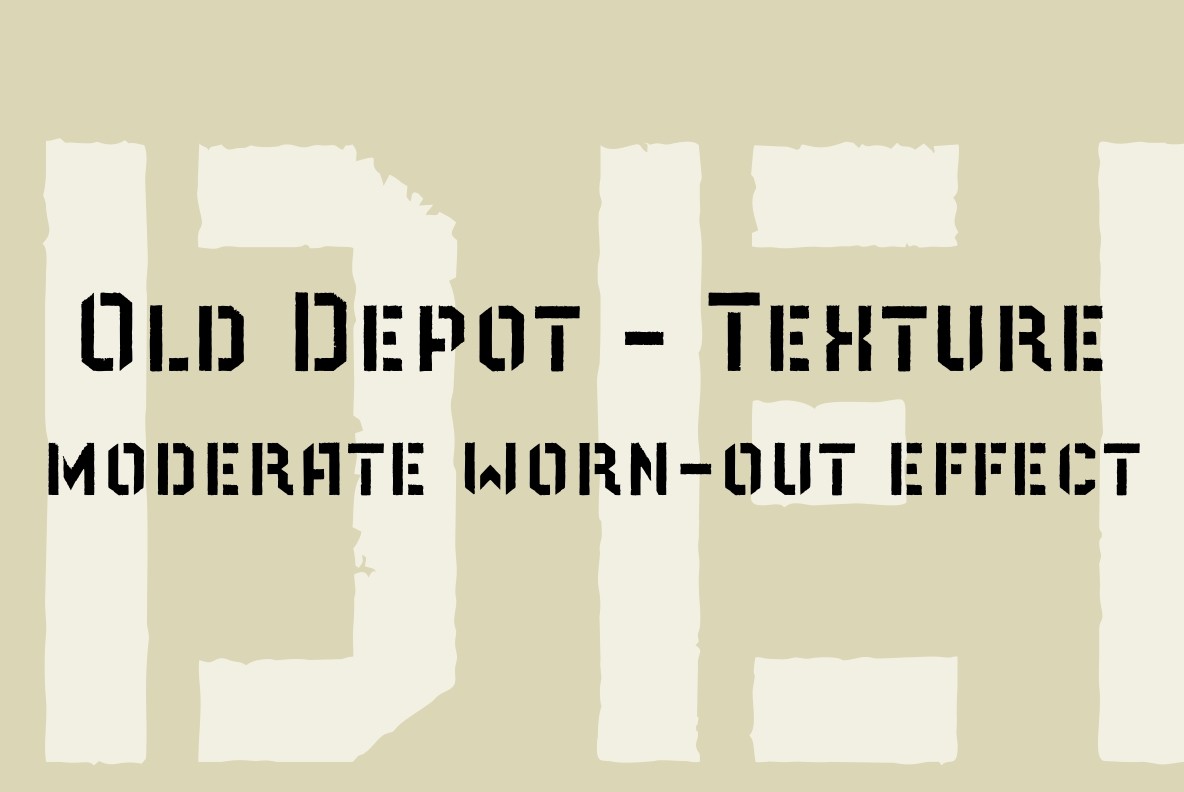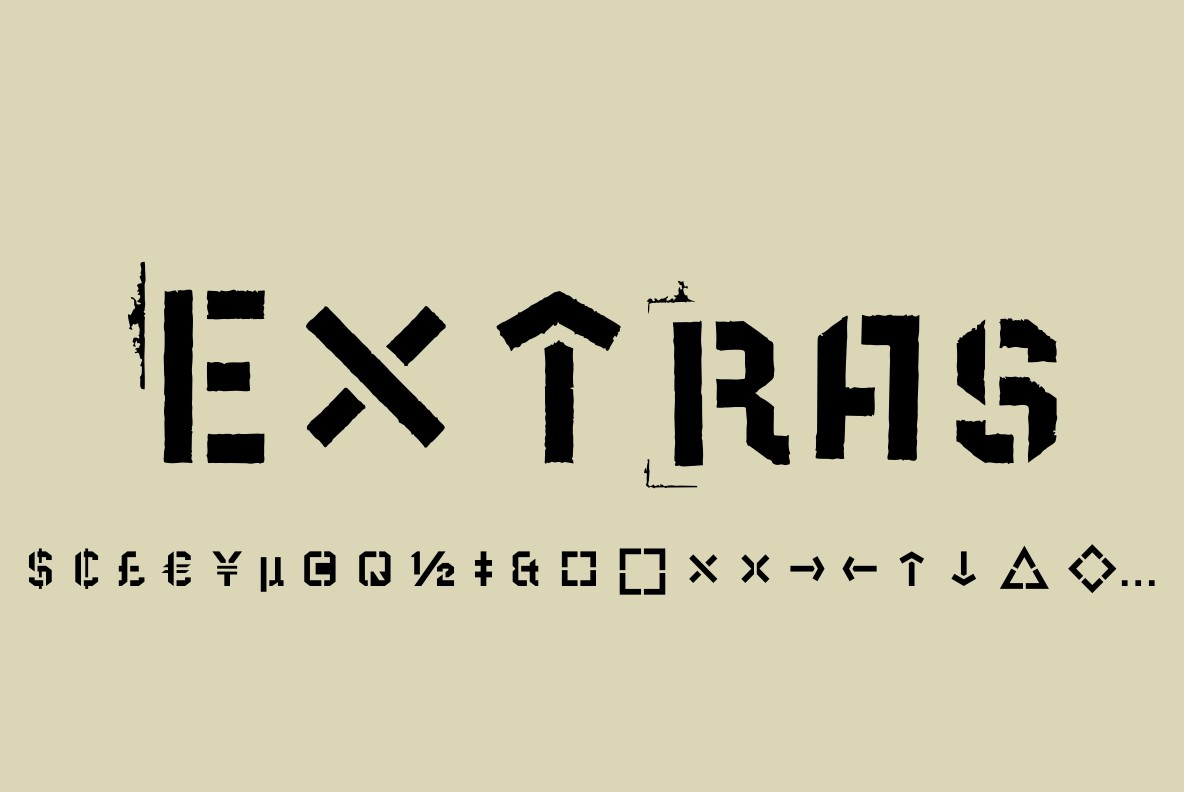
Old Depot Font
Old Depot is a newly reworked idea for the Depot Trapharet 2D font. It supports more languages and is available in more lettering. Old Depot stands out with its industrial nature of archaic spirit. It is a wonderful choice for solid uncompromising inscriptions or slogans. Don't be afraid to be brutal!